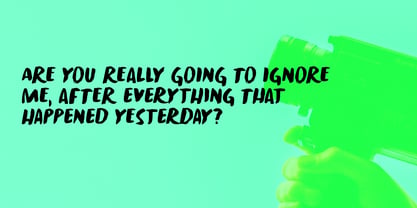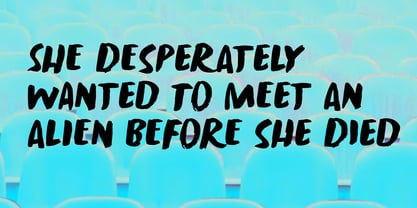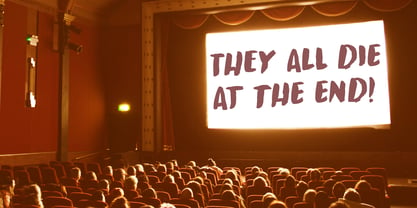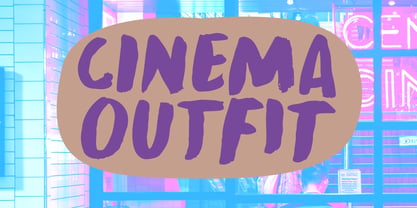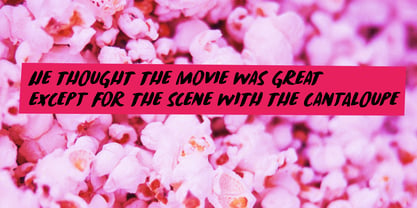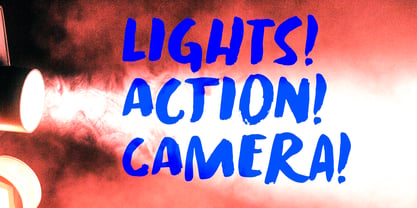
Cinema Outfit Pro
by Hanoded
The Cinema Outfit Pro Font Family was designed by David Kerkhoff and published by Hanoded. Cinema Outfit Pro contains 2 styles and family package options. More about this family
My wife was going to the cinema and asked me what she should wear. I didn’t have a clue, as I didn’t know one should dress up for the cinema (but apparently it’s a thing…).
Anyways, I was thinking about that when I started working on this font. Cinema Outfit was made with ink and brush. It is a nice, messy kind of font which will look fantastic when used in your designs.
Comes with extensive language support and a set of contextual alternates to boot!
Designers: David Kerkhoff
Foundry: Hanoded
Hanoded is run by Dutchman David Kerkhoff. His fonts are a mishmash of styles, as he just creates whatever pops into his head. You will find a lot of brush fonts in his collection, as his favourite tools are brushes and Chinese ink, with cartoon style fonts and script fonts complementing his repertoire. Aside from making fonts, David occasionally guides tours in far-flung places, renovates his '30's house and tries reasoning with his wife and (teenage) kids. Not an easy task!